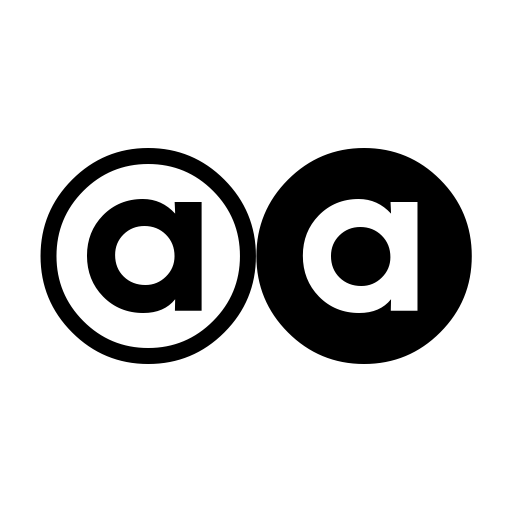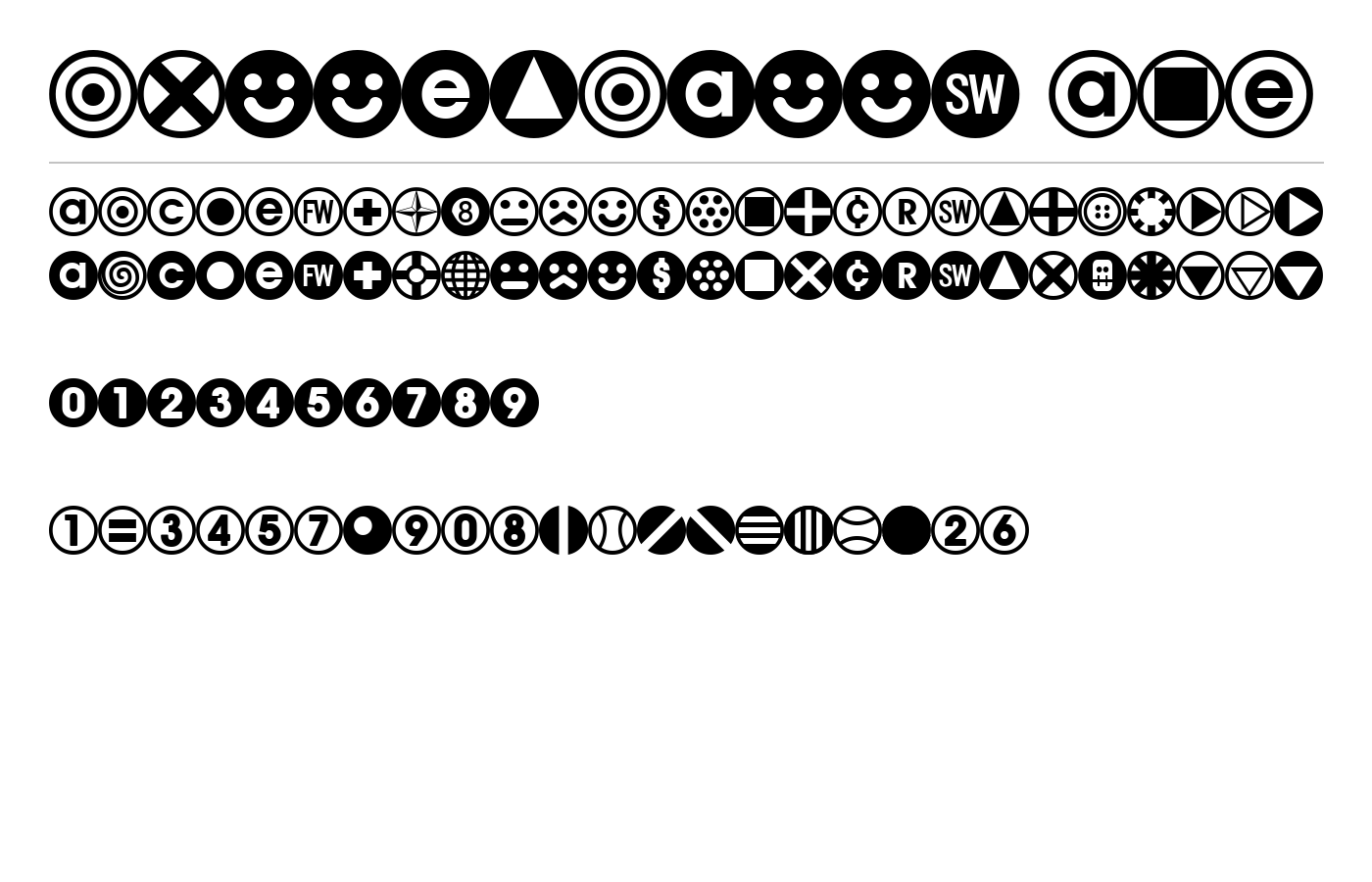
BulletBalls AOE is a bold, playful sans serif font characterized by its geometric shapes enclosed within circular outlines, creating a distinct and modern look. Its consistent weight and high contrast between the solid black circles and white inner glyphs give it a striking presence, making it ideal for fun, eye-catching designs such as logos, posters, and branding for entertainment or tech-related projects. This font’s unique, icon-like letterforms convey a sense of creativity and modernity, perfect for making a memorable visual impact.
BulletBalls AOE Font